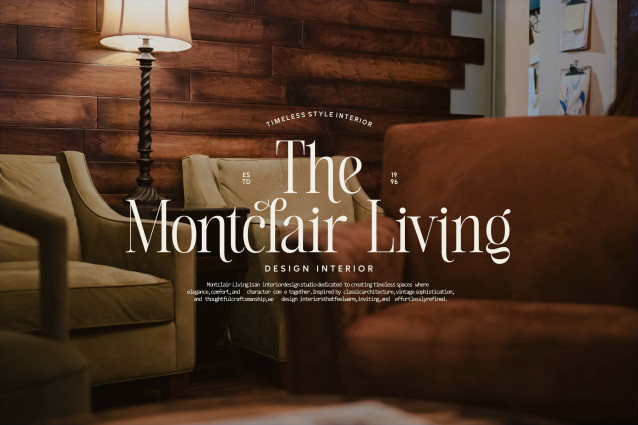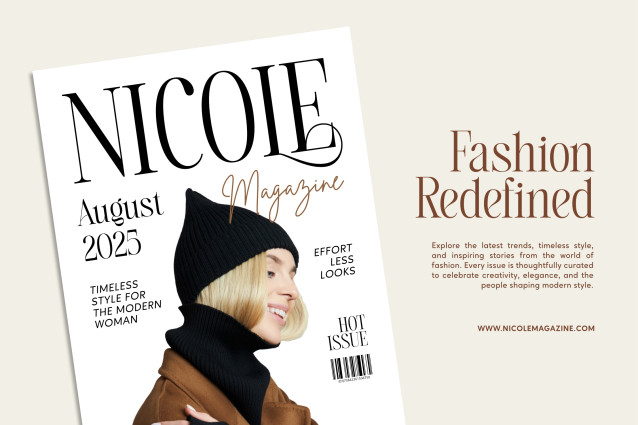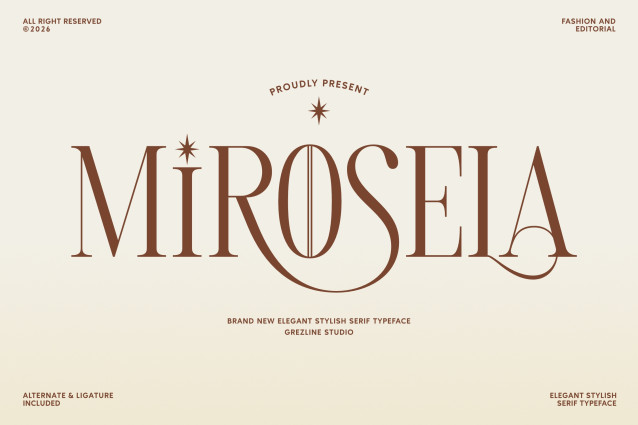
Mirosela Serif Font
Introducing Mirosela – a brand new elegant serif typeface crafted to make a statement. Featuring expressive letterforms, stylish alternates, and unique ligatures, Mirosela brings a sophisticated character to fashion, editorial, branding, and luxury-inspired designs.